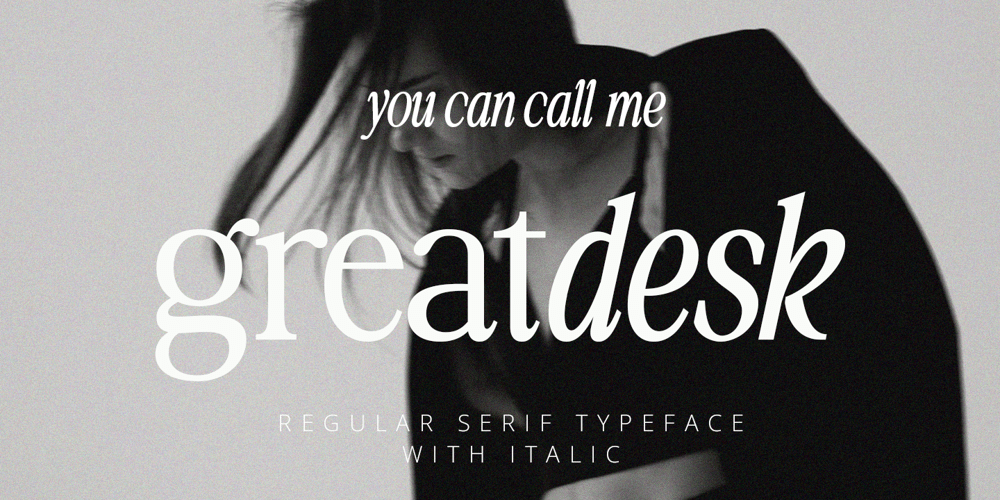
Greatdesk Serif
Greatdesk Serif font
Greatdesk Serif Font Family was designed by Fahmi Iman and published by Spectype. Greatdesk Serif contains 2 styles and family package options. The serif font “Greatdesk” is an ideal choice for designs that require a classic and professional touch. With balanced letterforms and strong lines, this font creates a clean and orderly appearance, while the serifs at the ends of the letters add elegance and clarity. Its italic version maintains the core characteristics but features a dynamic slant, providing additional expression without sacrificing readability. “Greatdesk” is suitable for various applications, from editorial design to branding and marketing materials, making it a perfect choice for both formal and creative documents.